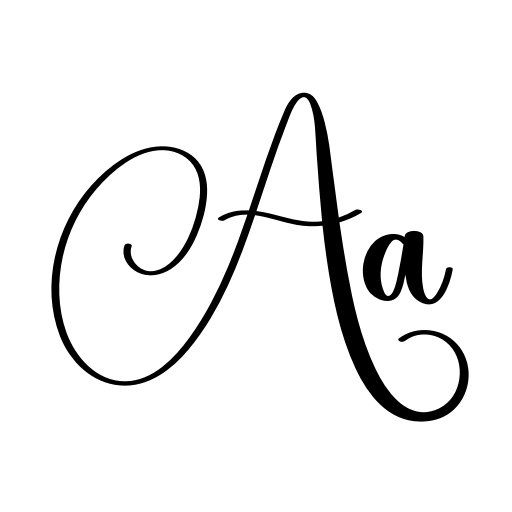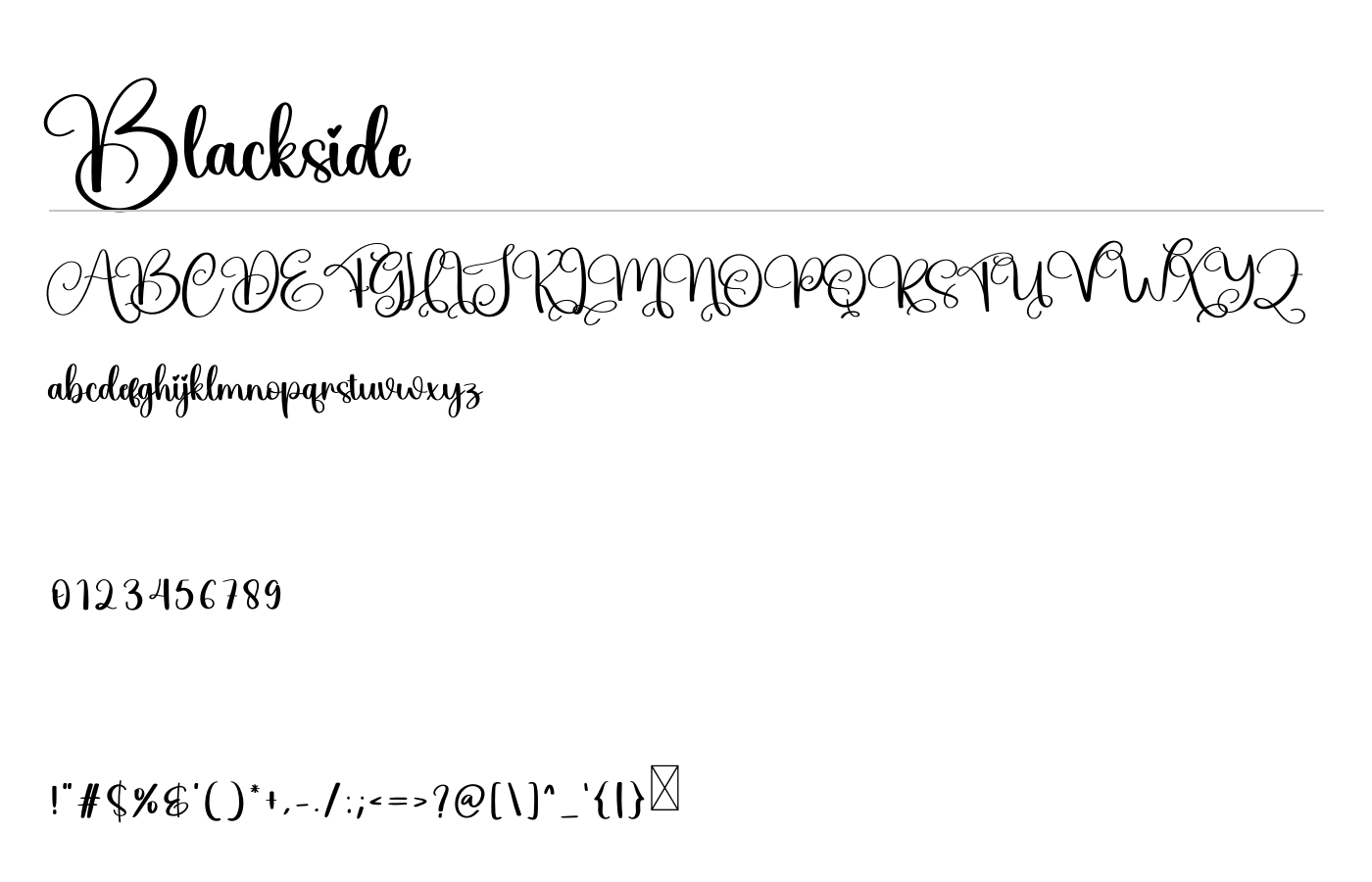
Blackside is an elegant script font that combines playful swirls and smooth strokes, creating a charming and sophisticated look. Its medium weight and balanced contrast make it perfect for stylish branding, invitations, and headlines where a touch of creativity and personality is desired. This font’s unique curls and flowing letterforms give it a warm, handcrafted feel that works beautifully in fashion, beauty, and luxury designs.
Blackside Font